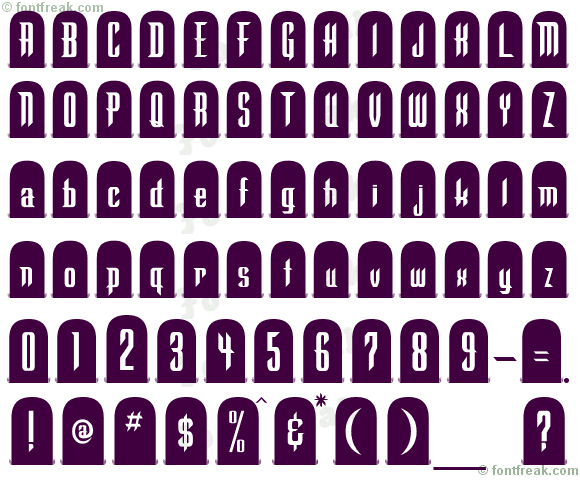
Tombstone Regular
About Tombstone Regular
Tombstone Regular, designed by Aaron Beck, is a unique decorative font that falls into the category of display typefaces. This font is part of the Halloween fonts package produced by Audio Electric Systems and is available as a freeware, making it accessible for various creative projects. Visually, Tombstone Regular features bold, thick strokes with a high contrast, giving it a striking appearance that is both playful and eerie. The letters are characterized by their rounded, tombstone-like shapes, enhancing the thematic essence of Halloween. The spacing between the characters is well-balanced, ensuring readability while retaining its decorative flair.
This font is ideal for a range of specific use cases, such as Halloween-themed party invitations, spooky event flyers, movie posters for horror films, and even haunted house signage. Its distinctive style can also add an engaging touch to merchandise designs aimed at the Halloween market. The target audience for Tombstone Regular includes graphic designers looking to enhance their seasonal projects, small business owners wanting to create eye-catching promotional materials, and content creators who wish to evoke a playful yet haunting atmosphere in their work.
What sets Tombstone Regular apart is its ability to blend whimsy with an inviting spookiness, making it a versatile choice for anyone seeking a font that captures the essence of Halloween. The font’s unique character shapes and bold strokes make it memorable, ensuring that any design featuring Tombstone Regular will stand out. For those looking to incorporate this distinctive typeface into their projects, the Tombstone Regular font free download offers an excellent opportunity to add a creative and thematic touch to your designs.